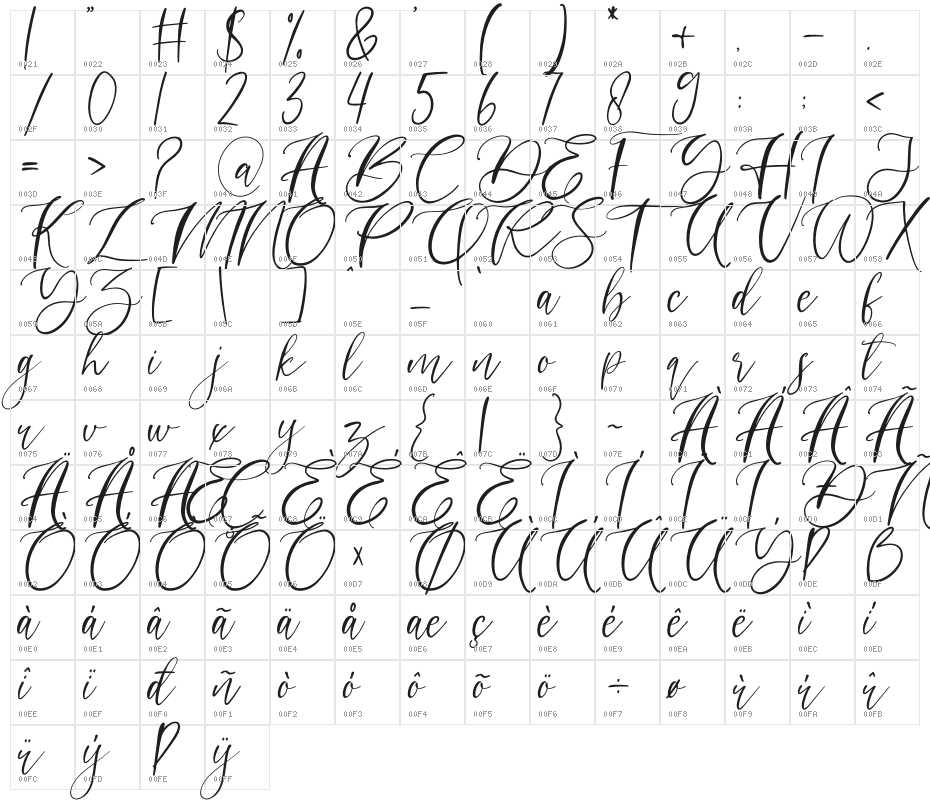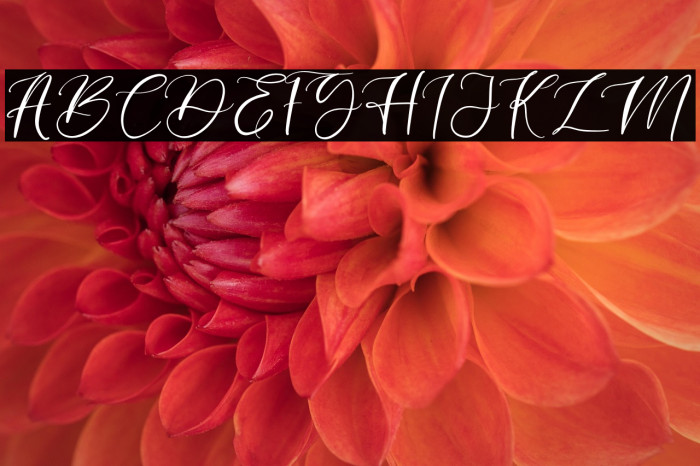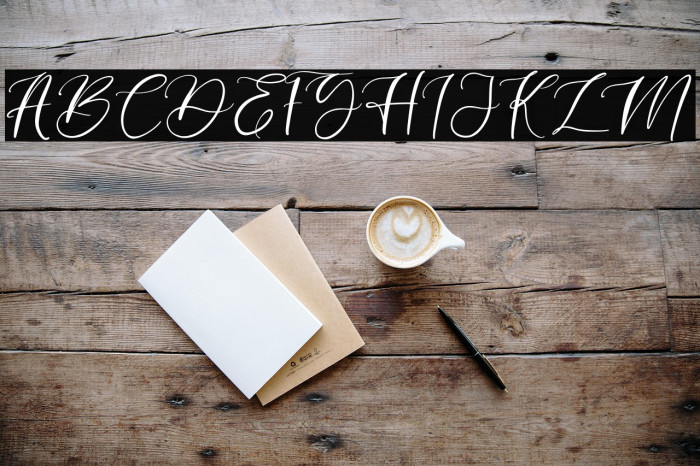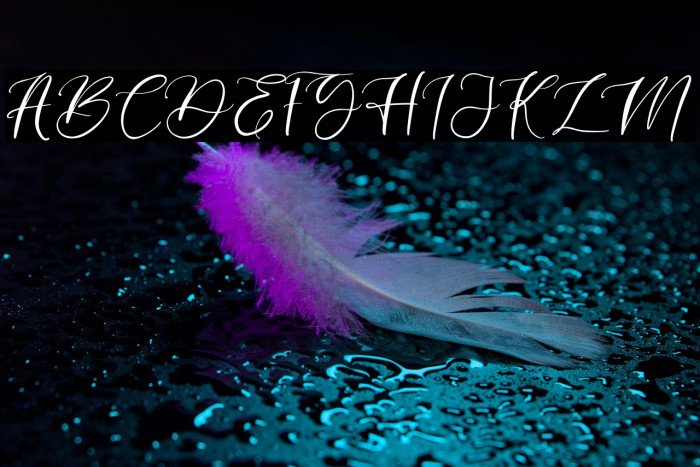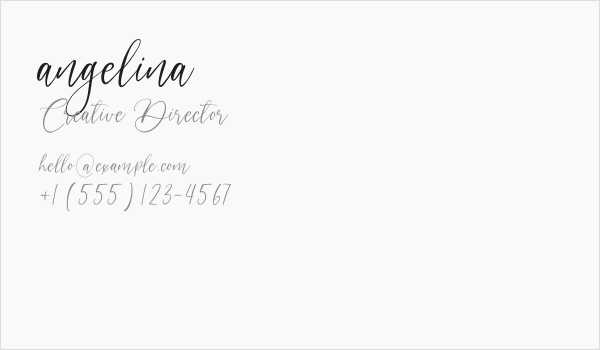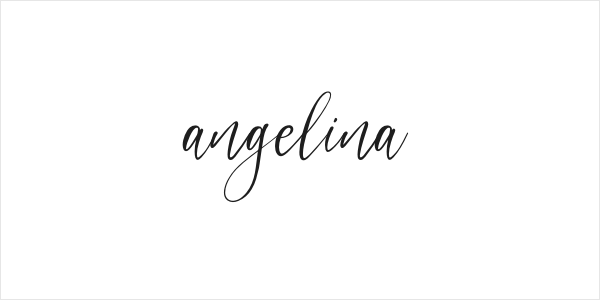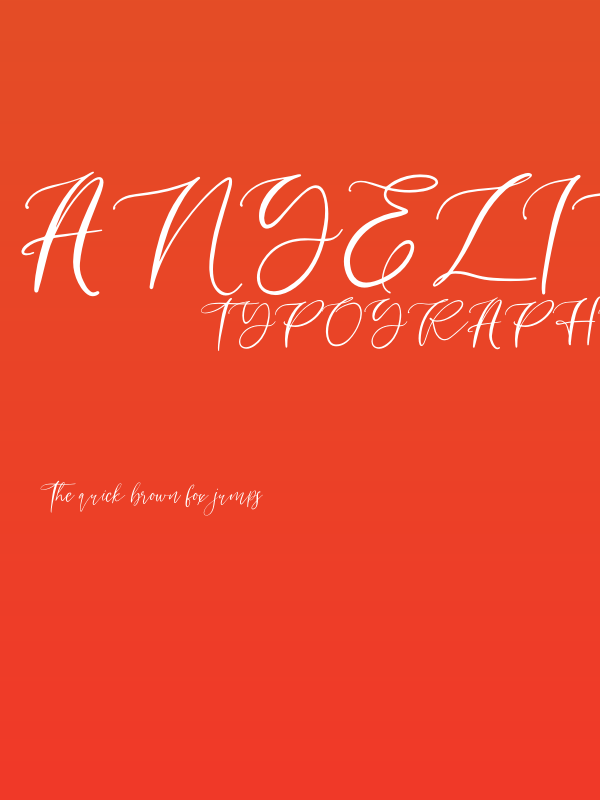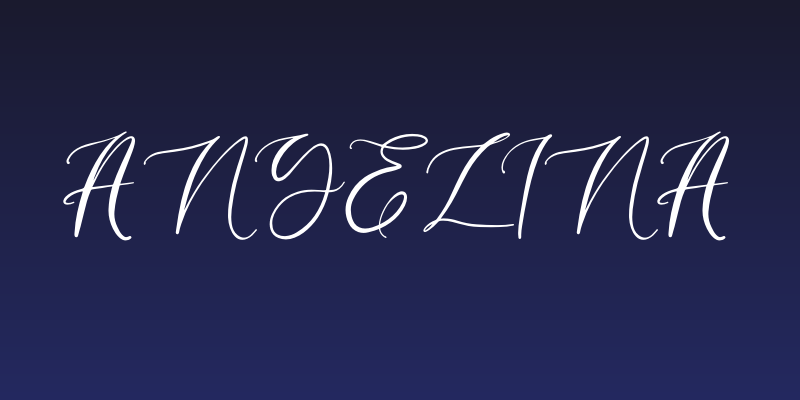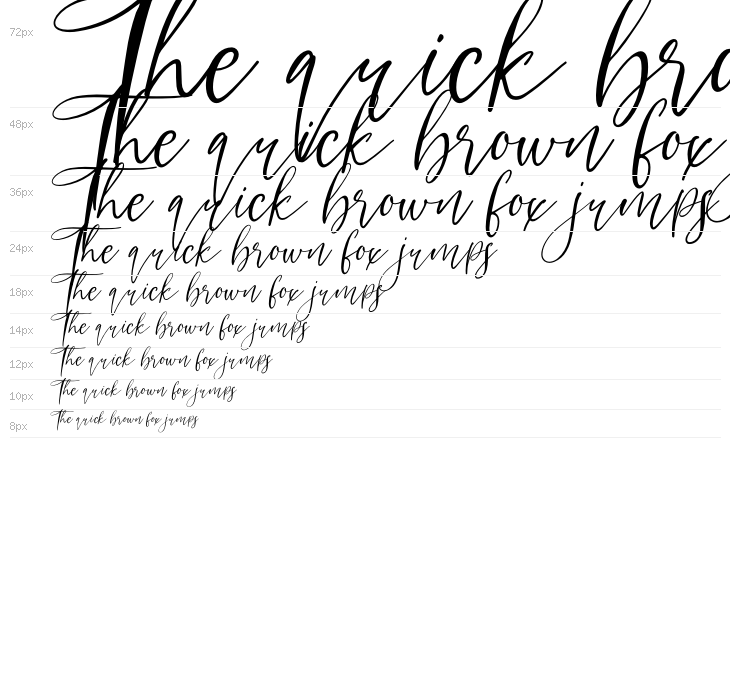
angelina Font
angelina Description
This font features an elegant and flowing script style, characterized by its smooth, cursive strokes and graceful curves. The uppercase letters are slightly more restrained, maintaining a consistent height and width, while the lowercase letters exhibit a more dynamic and fluid motion, with some characters extending below the baseline. The numerals are designed to complement the letters, maintaining the same fluidity and elegance. Special characters are seamlessly integrated, ensuring a cohesive look across all glyphs. The overall appearance is sophisticated and artistic, making it suitable for projects that require a touch of elegance and creativity.
| Overall Style | Elegant, Artistic |
| Use Case | Headlines, Invitations, Branding |
| Proposed Projects | Ideal for wedding invitations, elegant branding, personal stationery, and artistic projects. |